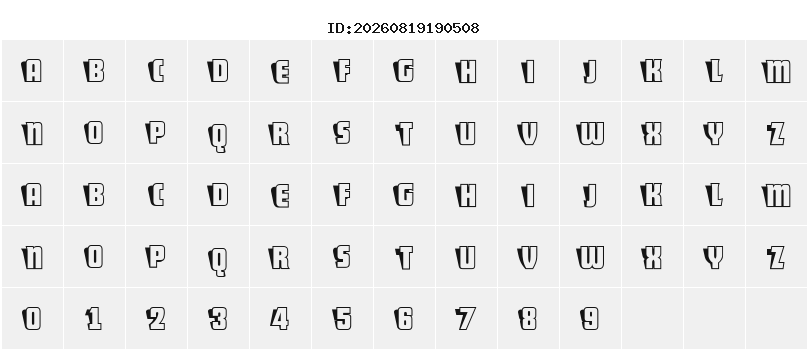
• Font Name: ShoCard Caps NF
• Font ID: Nick'sFonts: Sho-Card Caps NF: 2006
• Full Font Name: Sho-Card Caps NF
• Designer: Nick Curtis
• Manufacturer: Nick's Fonts
About ShoCard Caps NF.ttf
ShoCard Caps NF.ttf is a modern, elegant sans-serif font designed for ultimate readability and visual harmony. Perfect for branding, headlines, web design, and print materials.